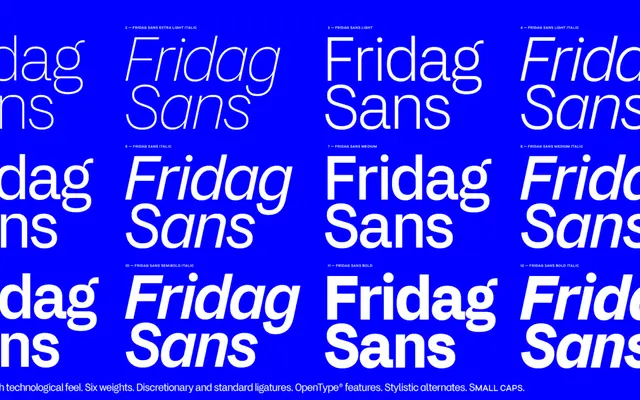
Fridag Sans
A six-weight humanist sans from Paavola Type Studio with small caps, discretionary ligatures and broad Latin Extended coverage.
Twelve styles across six weights from ExtraLight to Bold, each with a matching italic, make up a workmanlike text family. OpenType features include small capitals, standard and discretionary ligatures, tabular figures, stylistic alternates for the double-storey g, and case-sensitive forms. The glyph set reaches into Latin Extended-A and -B, covering a wide range of European languages.
The glyph set, OpenType features and overall construction suggest a humanist sans-serif sensibility, with a double-storey g alternate via Stylistic Set 1 and extensive Latin Extended coverage pointing to text-oriented humanist conventions.